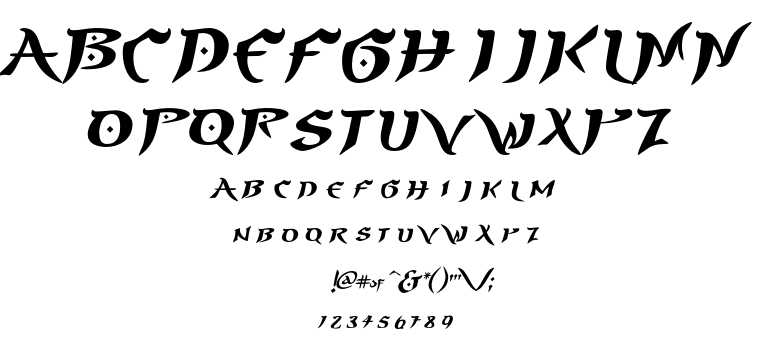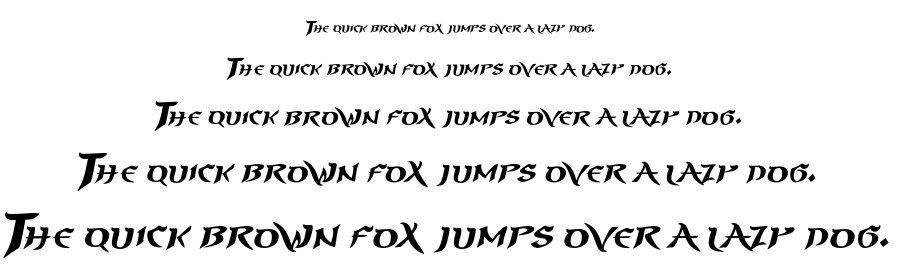
Typeface inspired on Prince of Persia game’s logotype characters. The metrics of this font makes it able to obtain exactly the same spacing of the logotype. But it is only possible to do so with advanced graphic applications such as Corel Draw, Illustrator, InDesign, Pagemaker, Photoshop, etc. Basic text editors, like Microsoft Word, can’t read kerning information and will not show the font correctly. Note: this font does not looks good in long uppercase texts.
To test the font resemblance to the logo, just write “Prince$Persia” (no space between words). The font will show “the original “of” instead of “$”.
To view seven Prince of Persia game related icons, type the following:
1-Astrolabe symbol: Alt=+0161
2-Kaileena’s symbol: Alt+0164
3-Babylon’s symbol: Alt+0162
4-Dagger symbol: Aly+0134
5-Hourglass symbol: Alt+0240
6-Amulet symbol: Alt+0160
7-Prince symbol: Alt+0137